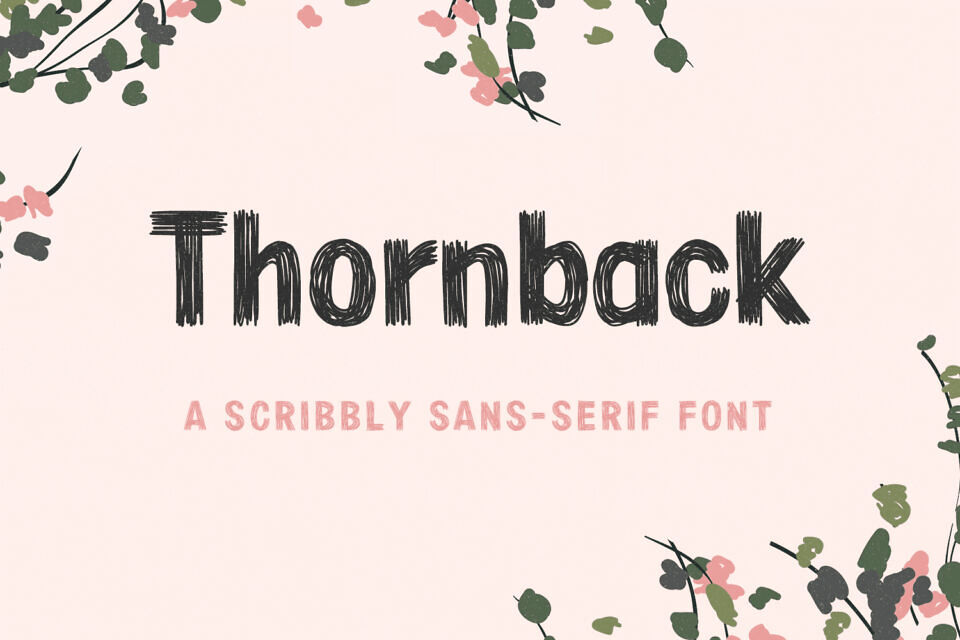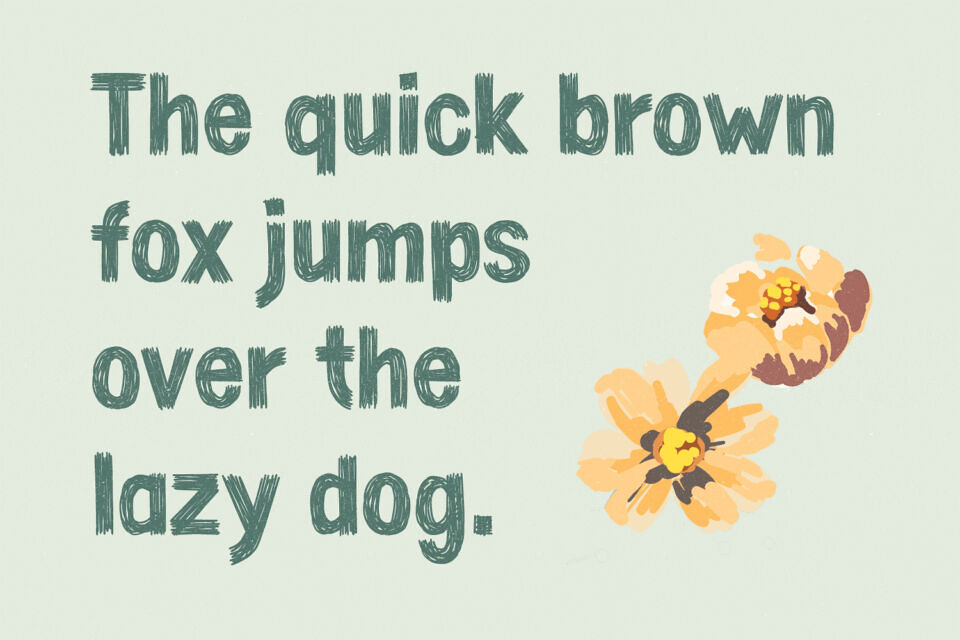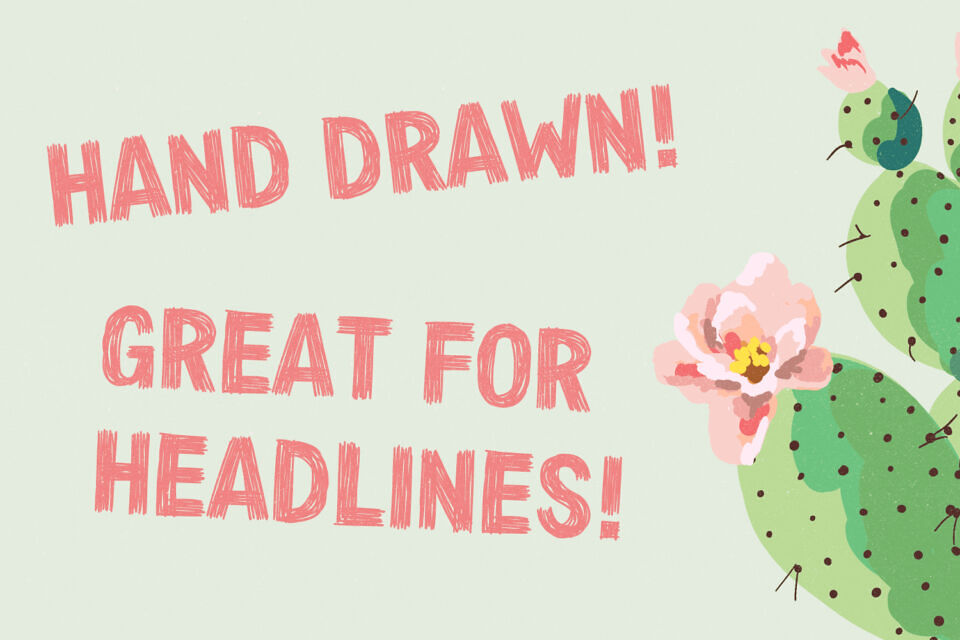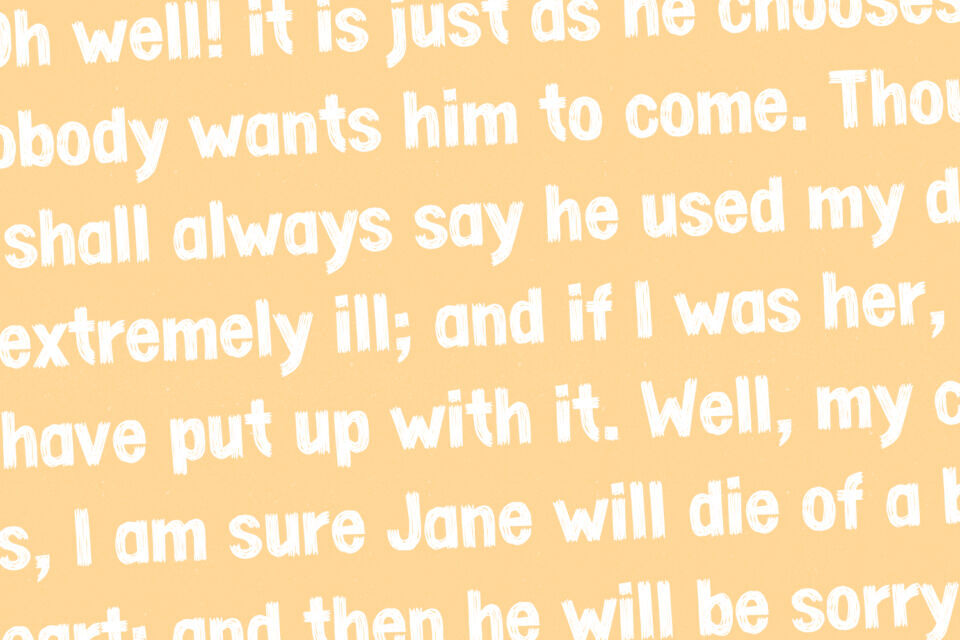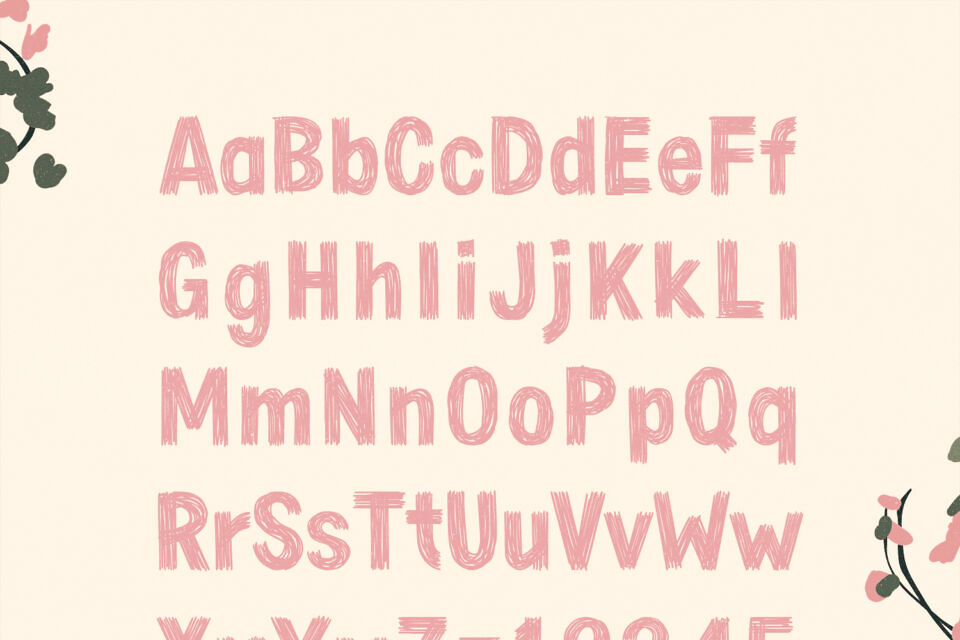
Thornback is a hand-drawn font that uses quick, scribbled strokes to create it’s slightly messy sans-serif characters. The detailed letters make it a good choice for headlines but it’s also bold enough to add a homemade touch to smaller text blocks while keeping things legible.